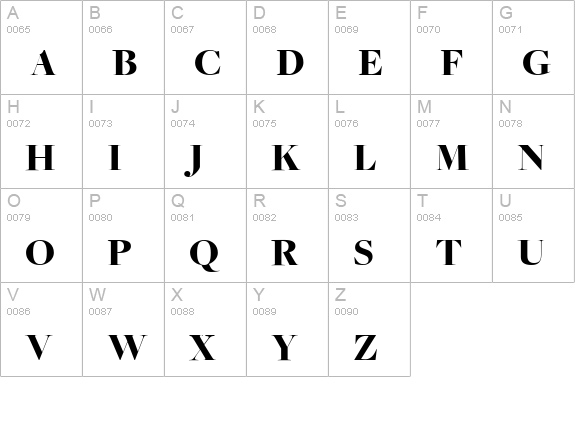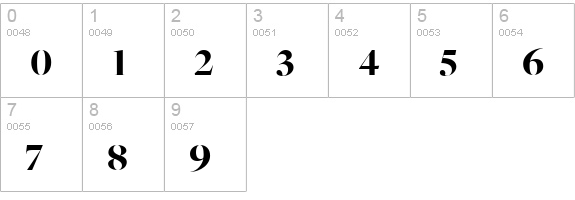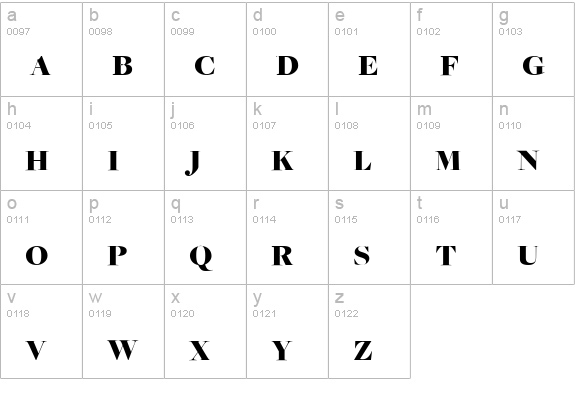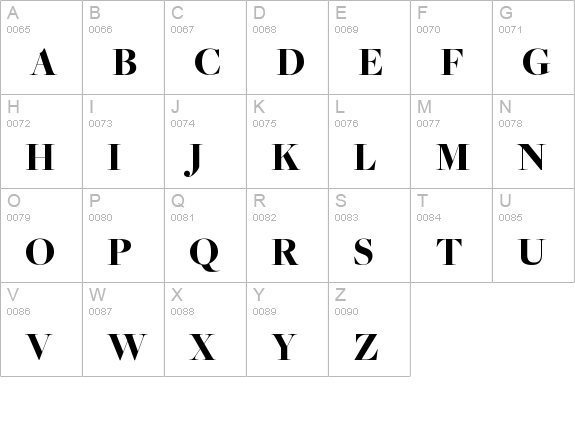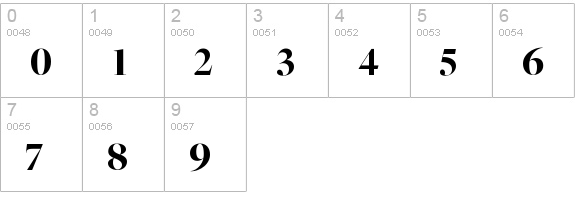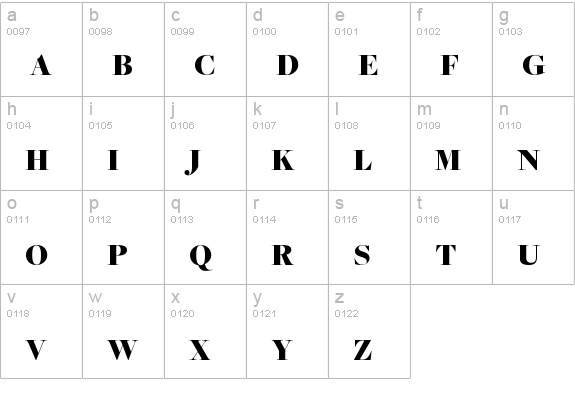
FreightBigBlackSC Font Details
FreightBigBlackSC is a bold and commanding font that exudes strength and power. Its thick strokes and sharp angles make a statement, perfect for headlines and attention-grabbing designs. The font's large size and black color command attention, making it ideal for conveying a sense of authority and impact. What sets FreightBigBlackSC apart is not only its striking appearance but also the fact that it is available for free download at FontsMarket.com. This means that you can add this impactful font to your collection without any cost, making it a valuable resource for designers, marketers, and creatives looking to make a bold statement with their work. Download FreightBigBlackSC today and elevate your designs with its bold presence and striking visual impact.